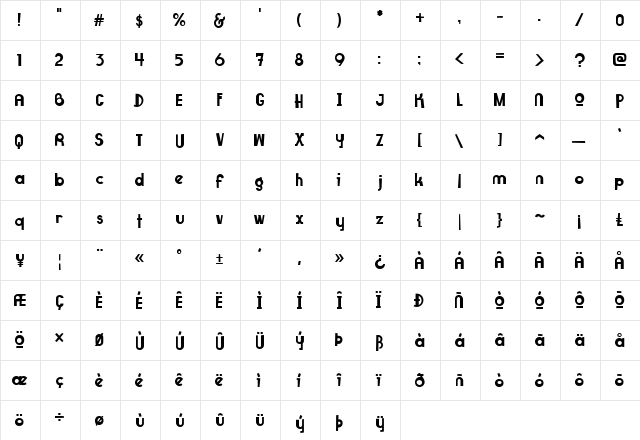
Superfruit Bold
Design Context for Superfruit Typeface
Superfruit is a composed and adaptable typeface that performs quietly and consistently across a wide range of design contexts. The heavy weight commands attention and anchors typographic hierarchies.